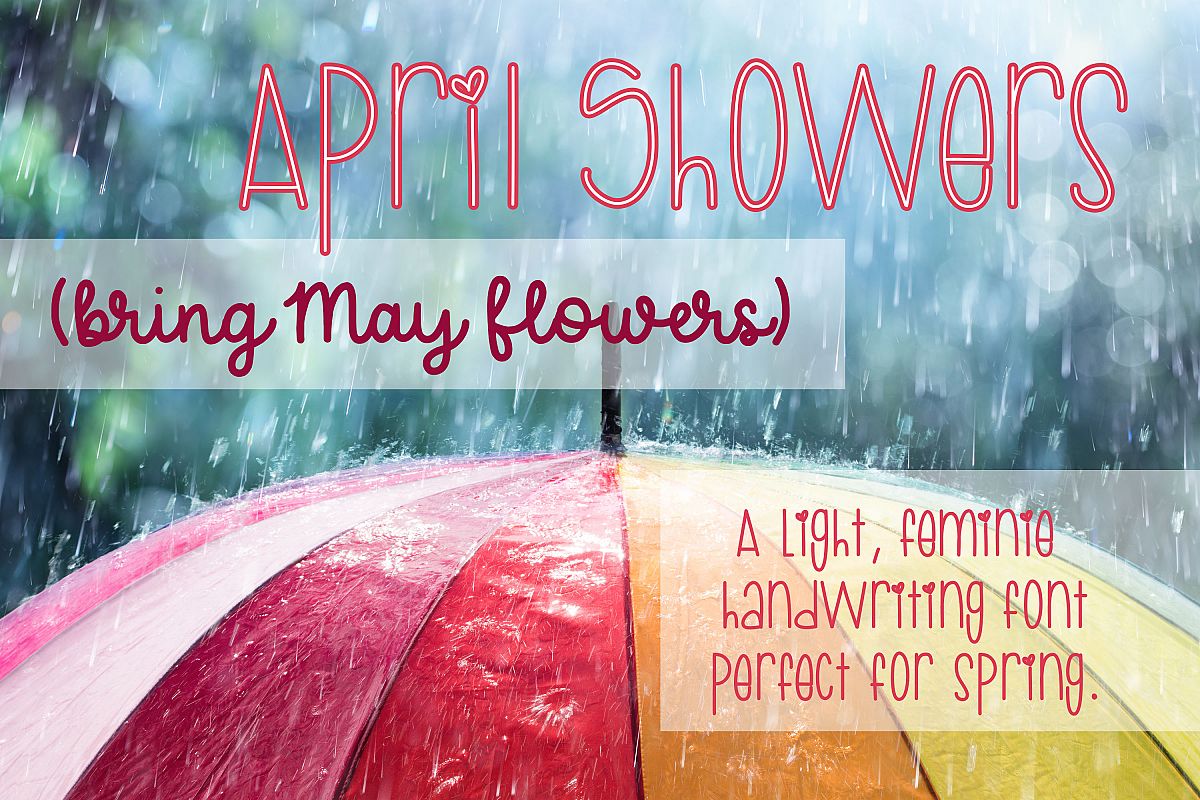
April Showers
April Showers is a cute, feminine handwriting font that reminds me of light spring showers. This font is perfect for an assortment of things and pairs very well with others (especially script fonts!). This font has two weights: Bold and Regular, and you can use this font for all sorts of things, including:
• greeting cards
• invitations
• posters
• t-shirt designs
• SVG Designs
• And more...